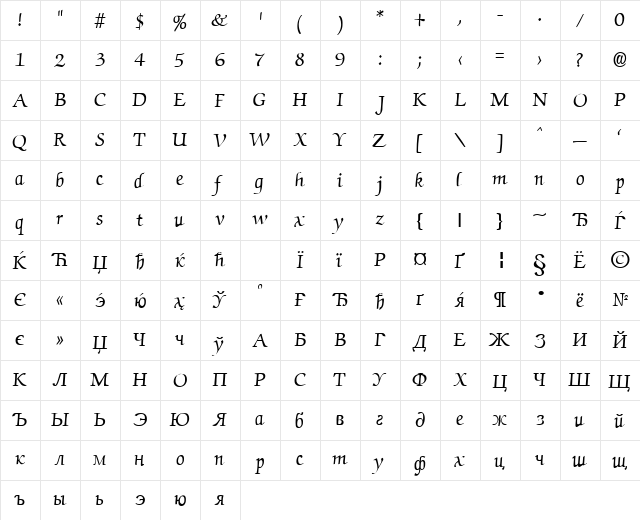
CyrillicChancellor Normal Font Preview
CyrillicChancellor Normal
CyrillicChancellor Normal Font Details
Design Context for CyrillicChancellor Typeface
CyrillicChancellor is a composed and adaptable typeface that performs quietly and consistently across a wide range of design contexts.